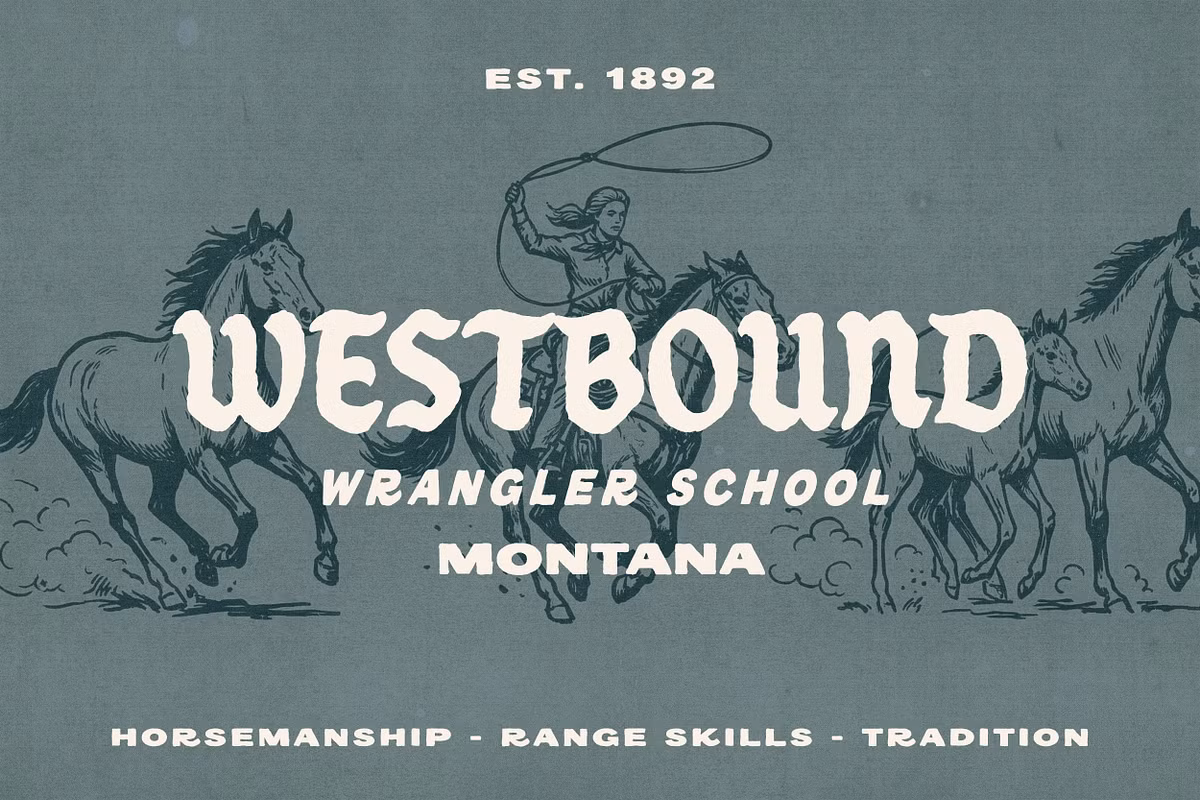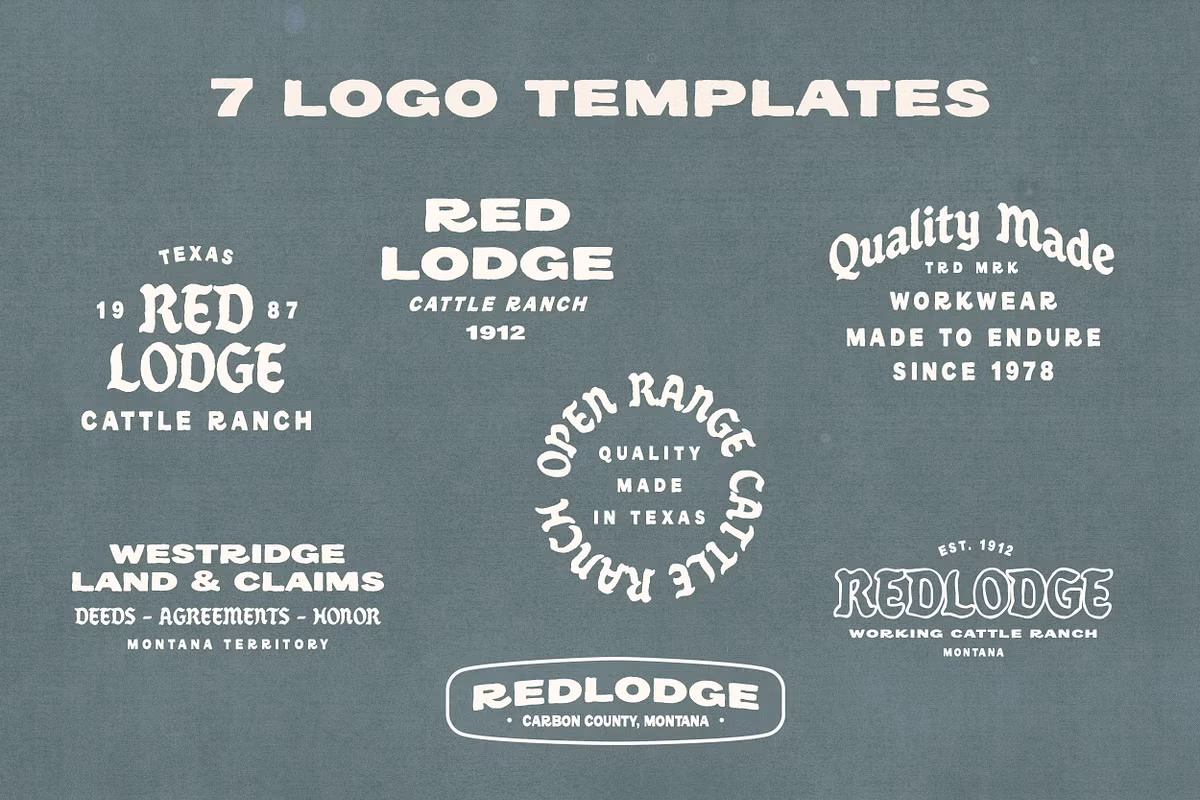
REDLODGE FONT DUO: Vintage Handcrafted Typeface for Bold Branding
Introducing the Redlodge Font Duo. Redlodge Font Duo is a typeface system that reflects the ranch culture and workwear heritage. Redlodge Font Duo was made by hand to feel bold, rugged and timeless. I have used Redlodge Font Duo, in my projects and Redlodge Font Duo feels solid. Redlodge Font Duo includes a serif style and a simple sans serif style. Redlodge Font Duo works for design projects. Redlodge Font Duo is more than a font; Redlodge Font Duo helps create identities, in print and digital media.
Design Style and Aesthetics
The Redlodge Font Duo shows a display style, with a personality. The Redlodge Font Duo reflects a look and still works well today. Each character in the Redlodge Serif family and each character in the Redlodge Sans family has a hand drawn feel. The hand drawn feel gives the Redlodge Serif and the Redlodge Sans a charm. The bold shape of the Redlodge Font Duo makes designs stand out. The bold shape of the Redlodge Font Duo works in logos in apparel graphics and, in layouts. I find the Redlodge Font Duo easy to work with.
The font duo includes 7 styles—Tall, Slanted, Outline, Condensed and Wide. The font duo gives you flexibility to create in places. To mix the styles as you need. The Redlodge Fonts work together. The Redlodge Fonts keep your typography consistent. Make your typography look good.
Character Sets and Versatility
I have used the Redlodge Font Duo. See that the Redlodge Font Duo includes a full character set. The character set supports languages such, as English, Italian, French, Spanish, Portuguese, German and several Scandinavian languages. The Redlodge Font Duo works well for brands and projects that want to reach people.
I have seen that the Redlodge Font Duo can be used in ways. The Redlodge Font Duo pairs a vintage serif, with a sans serif, so I can. Match styles for my design needs. When I make a poster or a logo, for a ranch brand the Redlodge Font Duo gives me the tools I need to turn my idea into a design.
Use Cases for Redlodge Font Duo
I think the Redlodge Font Duo works well for uses. The Redlodge Font Duo is a tool, for designers and brands alike:
- Workwear and Heritage Brands: Show the spirit of craftsmanship in every piece.
- Ranch, Outdoor and Western-Inspired Projects: Designs that look bold and adventurous.
- Apparel Graphics and Embroidery: Typography that shows quality and tradition.
- Logos and Badges: Create memorable logos and badges.
- Editorials and Posters: Print media that needs strong communication.
- Social Media Graphics: Stand out with impactful brand identity.
When you think about the typography, the pairing of the fonts can make the design better. The Redlodge Font Duo is built to match the Redlodge Font Duo. The Redlodge Font Duo can also work with fonts that pair well with the Redlodge Font Duo:
- For a Modern Touch: Pair the Redlodge Sans with a clean, minimalist sans serif like Montserrat for a contemporary look.
- For a Rustic Feel: Combine the Redlodge Serif with a script font, such as Pacifico, to add a touch of elegance to your designs.
- For Bold Statements: Use the Outline style from the Redlodge Font Duo with a strong display font like Bebas Neue for impactful headlines.
I experiment with the combinations because experimenting helps me find pairings. Unique pairings fit the brands message and the brands style.
The Redlodge Font Duo is a hand made typeface. The Redlodge Font Duo shows the feel of ranch life. The Redlodge Font Duo gives the flexibility and modern use that designers need. The Redlodge Font Duo includes both serif and sans serif styles. The Redlodge Font Duo offers a set of characters. The Redlodge Font Duo works in ways. I have used the Redlodge Font Duo, on a coffee shop logo. The result felt solid. The Redlodge Font Duo can be used for logos, posters, websites and product labels. The Redlodge Font Duo is a pick for anyone who wants a look, for a brand. You work on apparel graphics, logos or editorial layouts. The Redlodge Font Duo gives you a typography solution, for those projects. The Redlodge Font Duo improves your designs. Adds authenticity.